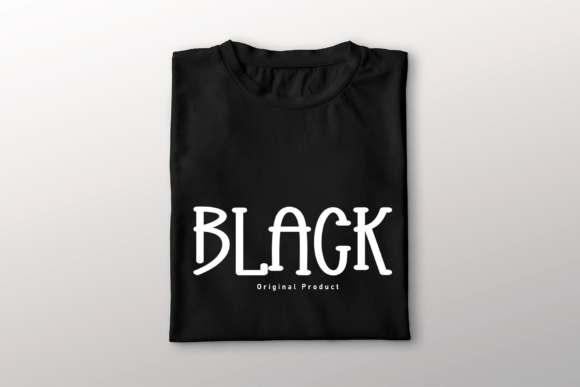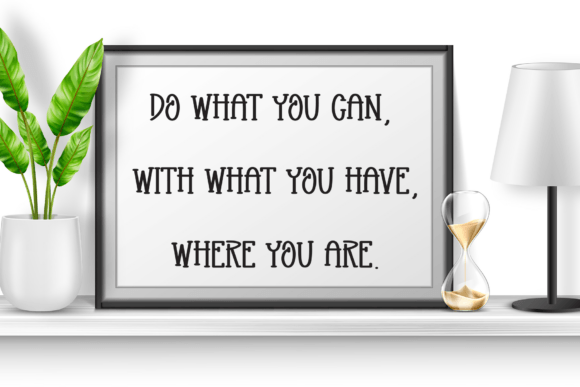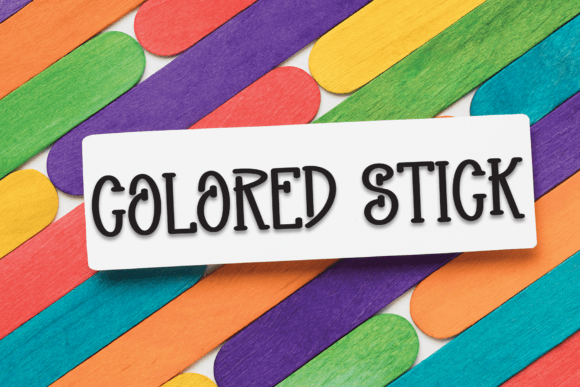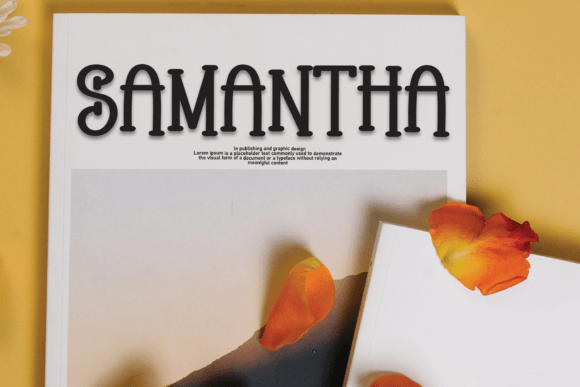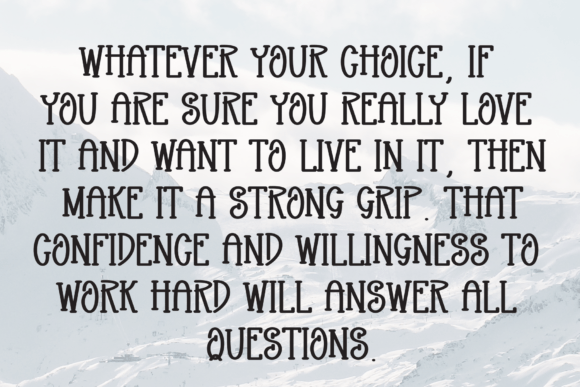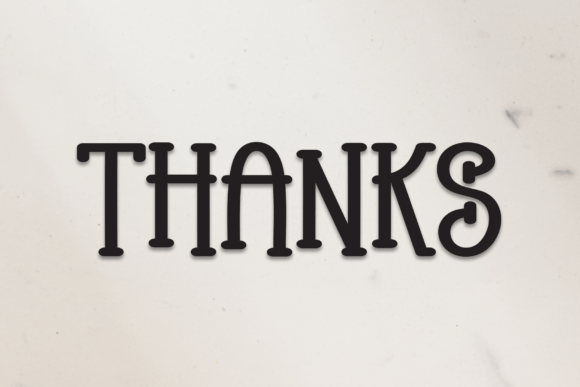
Introduction to Only This Font
Only This is a sweet and friendly handwritten font.
Key Features of Only This Font
Why Choose Only This Font?
Only This Font offers exceptional quality and versatility, making it a valuable addition to your design toolkit. Whether you’re creating for personal projects or commercial use, Only This Font delivers professional results.